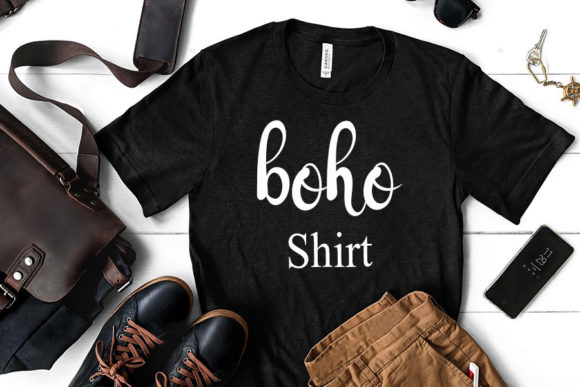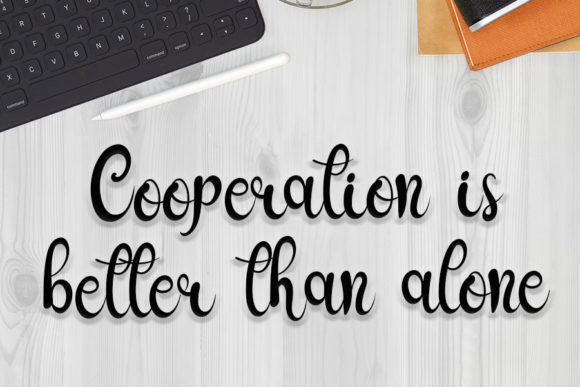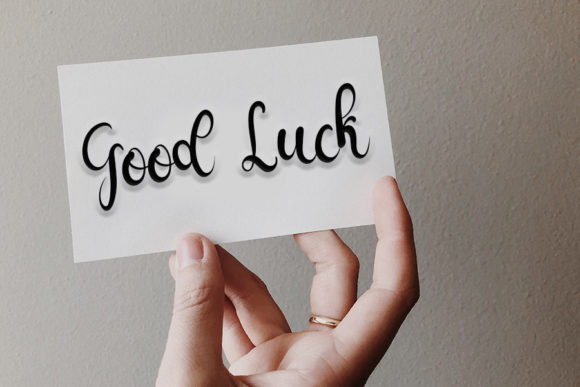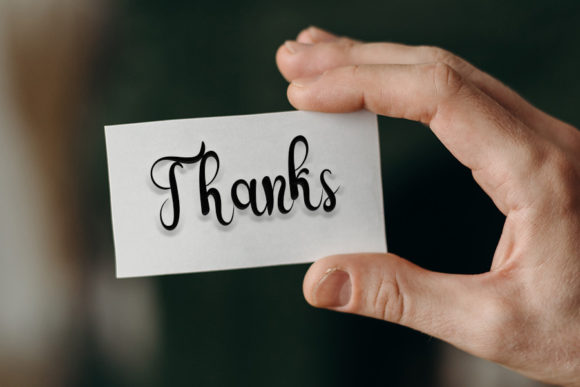
Discover the Elegance of Calisha Font: Elevate Your Designs with a Touch of Sophistication
In the world of typography, fonts play a pivotal role in conveying messages, expressing emotions, and creating lasting impressions. Among the myriad of fonts available, Calisha Font stands out as a casual handwritten font that effortlessly blends classy calligraphic influences with a contemporary and fresh appeal. Designed to capture the hearts of designers and crafters alike, Calisha Font is poised to become a true favorite in your typographic arsenal.
The Essence of Calisha Font
Calisha Font is a meticulously crafted typeface that exudes elegance and sophistication. Its casual handwritten nature gives it a personal and approachable feel, making it perfect for a wide range of design projects, from branding and advertising to packaging and digital media. The font’s design is characterized by its fluid strokes, subtle variations in line width, and a harmonious balance of curves and lines, which collectively contribute to its unique charm.
Classy Calligraphic Influences
One of the defining features of Calisha Font is its classy calligraphic influences. The font’s creator has drawn inspiration from traditional calligraphy, infusing it with a sense of luxury and refinement. This is evident in the font’s elegant letterforms, which feature delicate flourishes and a high level of craftsmanship. The calligraphic influences not only add a touch of sophistication to the font but also make it highly versatile, suitable for both formal and informal design projects.
Contemporary and Fresh Appeal
While Calisha Font is deeply rooted in calligraphic traditions, it also boasts a contemporary and fresh appeal that sets it apart from more traditional typefaces. The font’s clean lines, subtle geometric influences, and carefully calibrated letter spacing give it a modern feel that is sure to resonate with contemporary design sensibilities. This blend of classic and modern elements makes Calisha Font an excellent choice for designers seeking to create designs that are both timeless and trendy.
Why Fall in Love with Calisha Font?
There are numerous reasons why designers and crafters will fall in love with Calisha Font. Here are a few:
- Elegance and Versatility: Calisha Font’s elegant design and versatile nature make it suitable for a wide range of design projects, from luxury branding to social media graphics.
- Readability and Legibility: The font’s carefully crafted letterforms ensure excellent readability and legibility, making it perfect for both short and long-form content.
- Emotional Connection: Calisha Font’s personal and approachable feel helps create an emotional connection with the audience, making it ideal for designs that require a human touch.
- Easy to Use: The font is easy to use and pairs well with a variety of other typefaces, making it a great addition to any designer’s font library.
Let Calisha Font Elevate Your Projects
Whether you’re a seasoned designer or a crafter looking to add a touch of sophistication to your projects, Calisha Font is the perfect choice. Its unique blend of classy calligraphic influences and contemporary appeal makes it an excellent tool for creating designs that are both visually stunning and effective.
Imagine using Calisha Font to:
- Create stunning brand identities that exude luxury and sophistication.
- Design eye-catching advertising materials that capture the audience’s attention.
- Develop beautiful packaging designs that stand out on store shelves.
- Produce engaging digital content that resonates with your audience.
In conclusion, Calisha Font is a remarkable typeface that offers a perfect blend of elegance, versatility, and modernity. Its classy calligraphic influences, combined with its contemporary and fresh appeal, make it an excellent choice for designers and crafters seeking to elevate their projects to the highest levels. With Calisha Font, you can create designs that are not only visually stunning but also effective in conveying your message and connecting with your audience.
So, fall in love with Calisha Font and discover the power of typography in transforming your designs. Let Calisha Font be your partner in creating stunning visual experiences that leave a lasting impression.